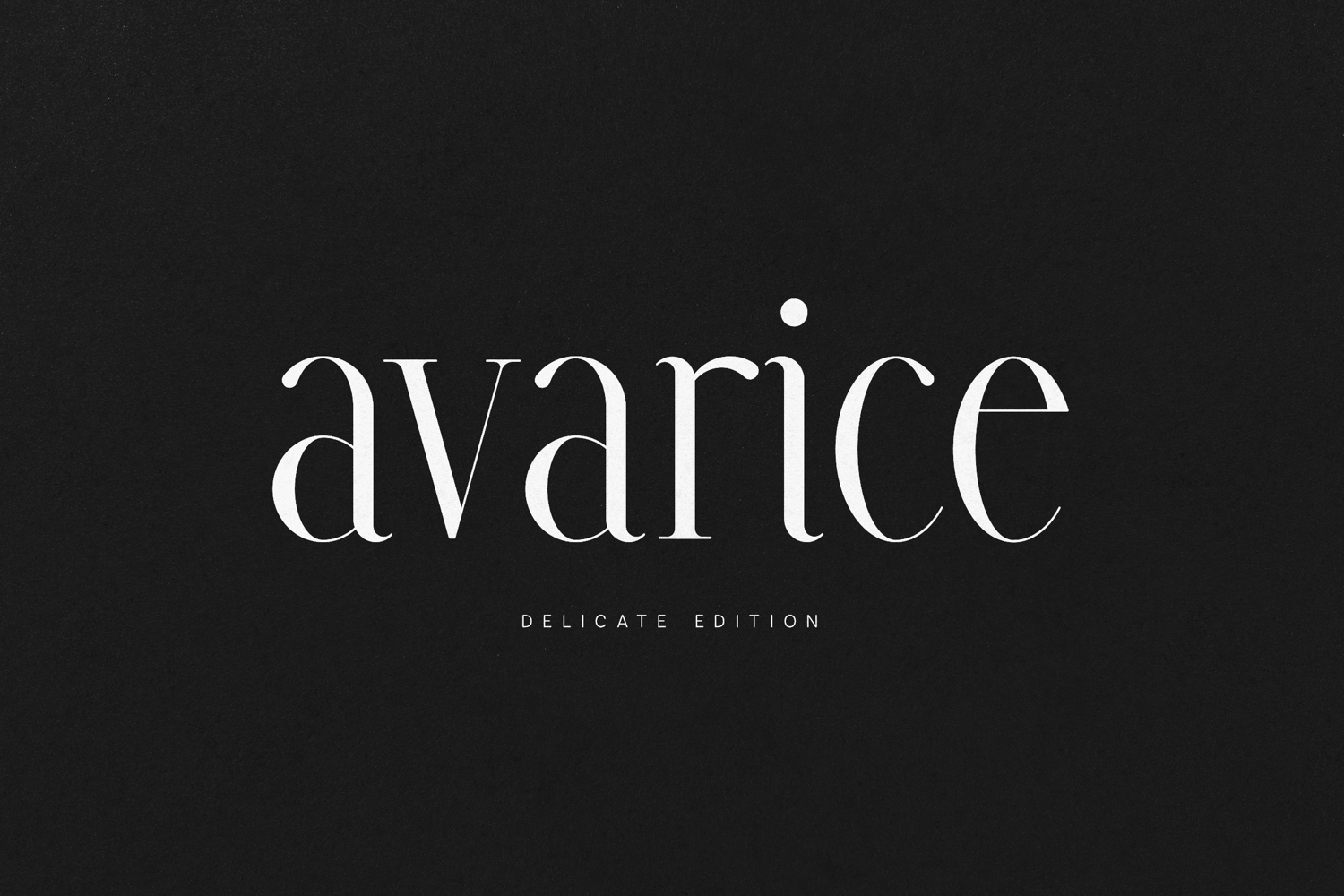
Avarice Elegant High Contrast Serif Font
Avarice is a refined high-contrast serif typeface designed for sophisticated branding and modern editorial design.
With its delicate hairlines, sculpted serifs, and graceful curves, Avarice delivers a timeless yet contemporary luxury aesthetic. The dramatic contrast between thick and thin strokes creates striking headlines while maintaining elegance and balance.
The letterforms feel poised, confident, and fashion-forward — making this typeface ideal for premium visual identities and statement typography.
• Fashion branding
• Beauty & cosmetics packaging
• Luxury logos
• Editorial layouts
• Magazine covers
• Wedding invitations
• Minimal brand systems
• High-end social media graphics
Elegant. Dramatic. Modern. Refined.
Avarice transforms words into visual statements.